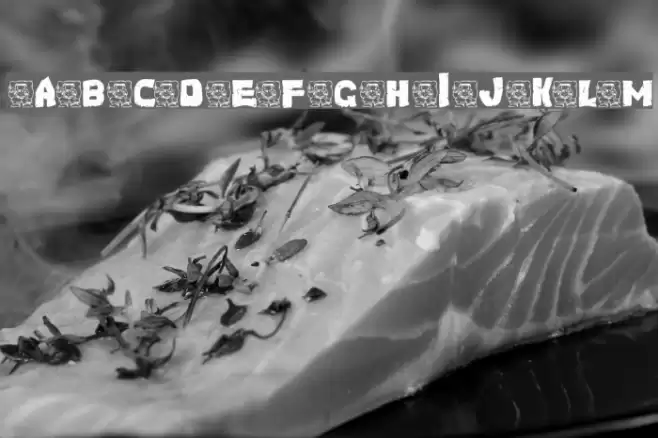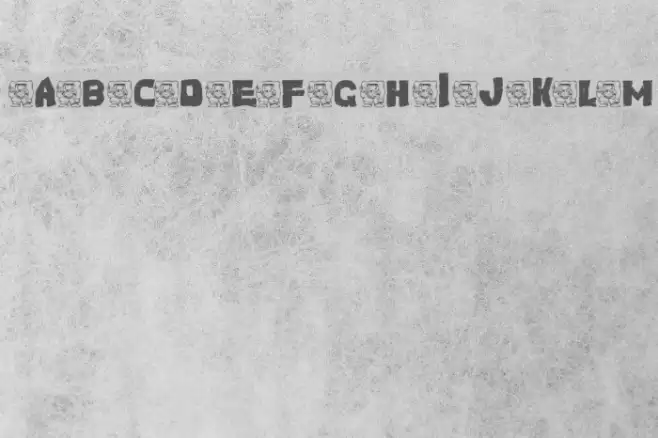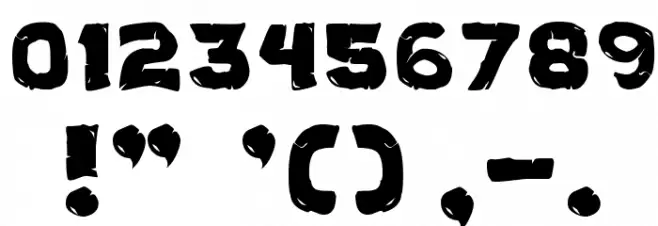
AEZ monster Font
AEZ monster Description
This font features a playful and spooky design, incorporating monster-like elements within each character. The uppercase and lowercase letters are adorned with intricate, cartoonish monster faces, giving it a unique and whimsical appearance. The numbers and special characters maintain the same playful theme, with bold, rounded shapes that enhance the overall quirky style. The font's design is highly decorative, making it ideal for projects that require a fun and eye-catching aesthetic. Its distinctive style is perfect for Halloween-themed designs, children's book covers, or any creative project that aims to capture a sense of fun and imagination.
A playful, monster-themed decorative font with bold, quirky characters from Uncategorized fonts.
- Proposed Projects: Ideal for Halloween designs, children's books, party invitations, and playful branding.